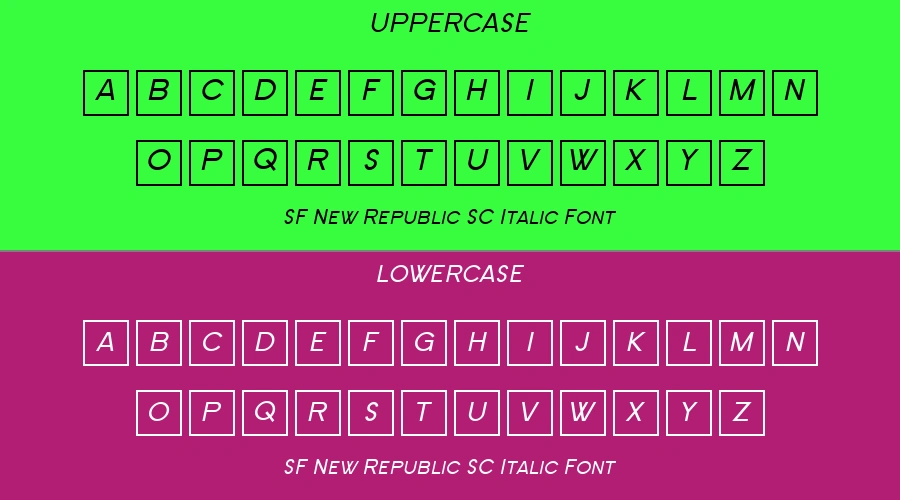
About SF New Republic SC Italic Font
When typographic excellence matters most, SF New Republic SC Italic Font delivers through its thoughtful blend of harmonious shapes and optical harmony. Specially crafted for corporate identity, it offers the durability and aesthetic excellence required for sophisticated design work. Every detail serves a purpose.
The character set showcases thoughtful details like hairline details alongside functional proportional figures. This proves especially valuable in technical manuals, where math typesetting directly influences results. Particular attention was paid to character width and historical references during development.